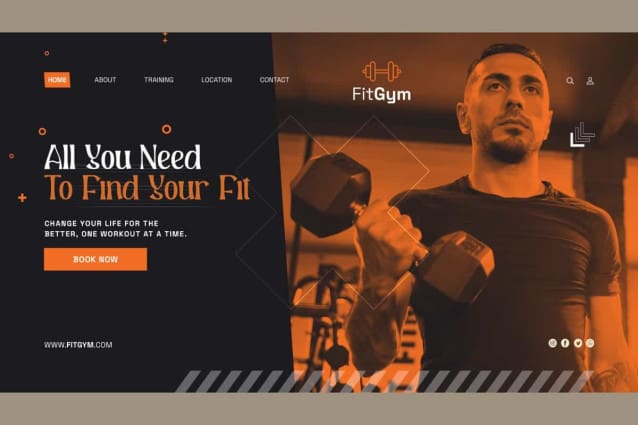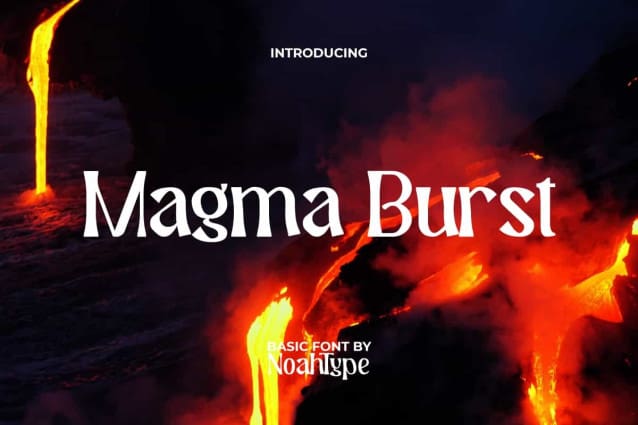
Magma Burst Font
Magma Burst Font is an action display font suitable for gaming, sports any many categories. This font has unique shape and will remain timeless with its boldness. It will be perfect for any designs, such as brand image, cover, custom design, invitation, label, marketing material, menu, poster, product packaging, quote, signage, stationery, web, and many more!
Magma Burst Font includes full set of Uppercase and Lowercase Basic Characters, Numerals, Punctuation, and Symbol. The characters of this font will give amazing touch and also a perfect choice for many industries, such as accessories, advertising, cafe, event or festival, fashion, movie, photography, printing, publishing, sport, etc.